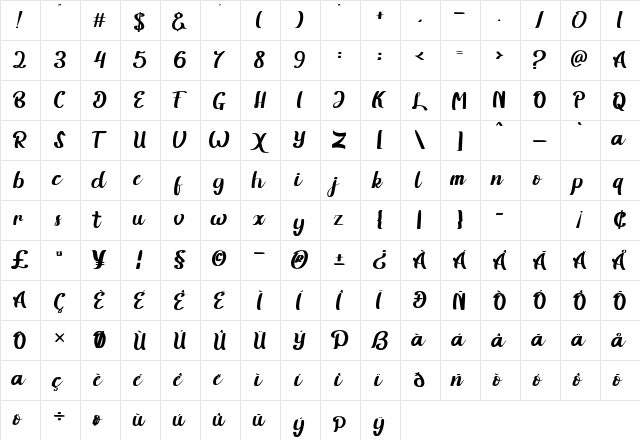
Brifuqa Regular
Design Context for Brifuqa Typeface
Brifuqa is a composed and adaptable typeface that performs quietly and consistently across a wide range of design contexts.